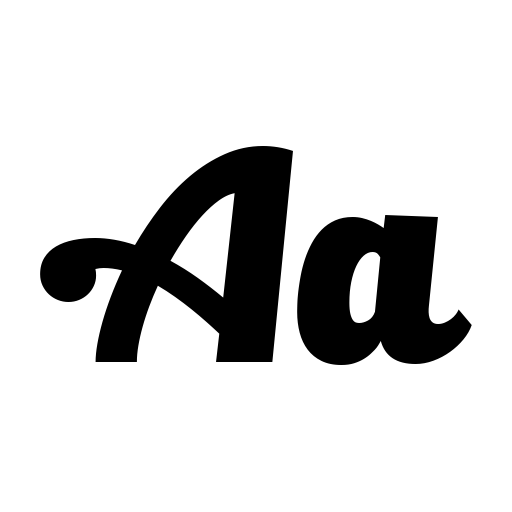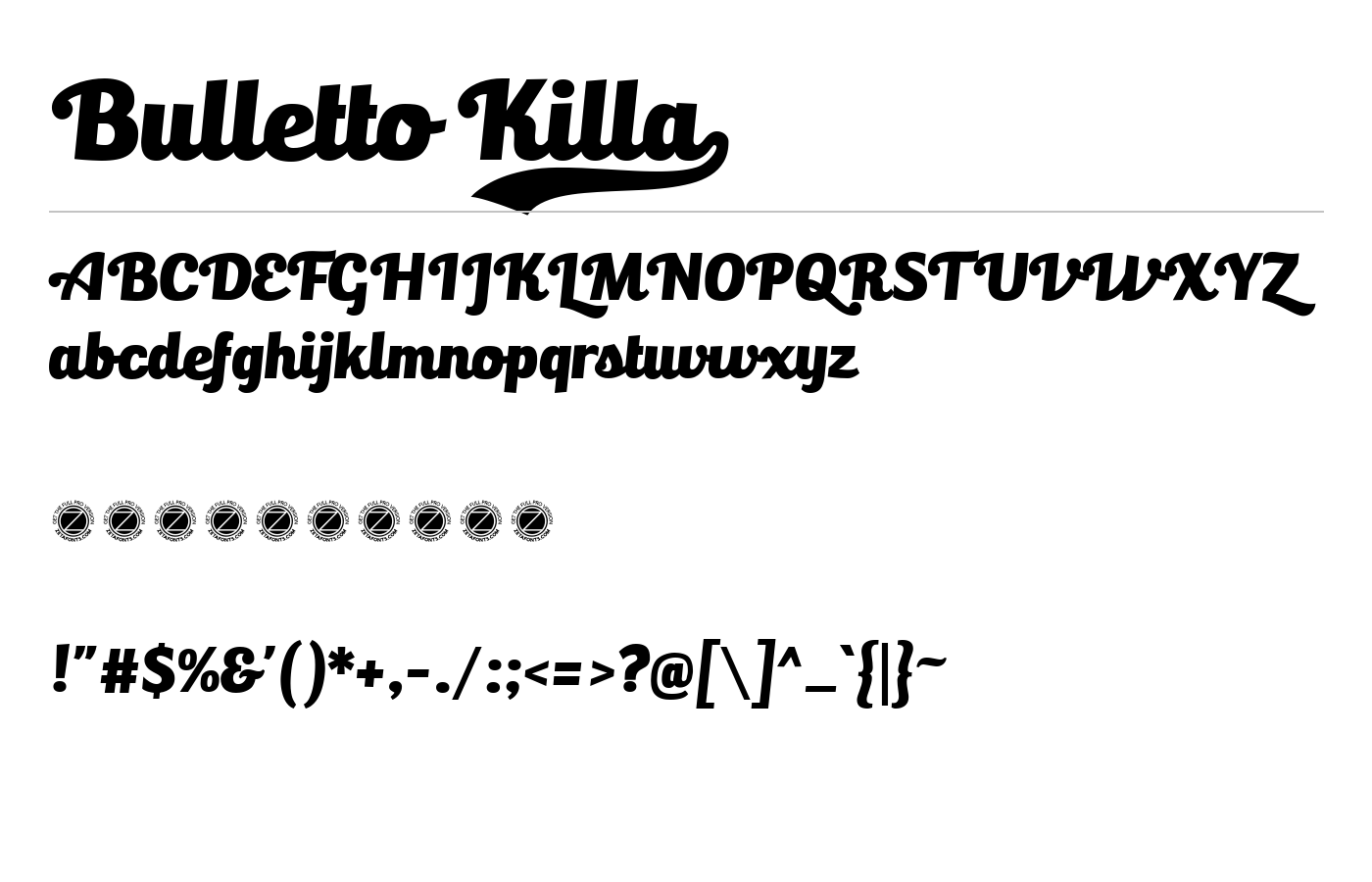
Bulletto Killa is a bold, playful serif font with a vintage-inspired flair and strong calligraphic influences. Its thick strokes, smooth curves, and distinctive swashes give it a dynamic, energetic feel, making it ideal for eye-catching headlines, logos, and branding that aim to convey personality and charm. This font works great in creative and lifestyle projects where a bold, friendly, and stylish appearance is desired.
Bulletto Killa¬ Font
About Bulletto Killa¬ Font
| Font family | Bulletto Killa¬ Font |
| Designer | Cosimo Lorenzo Pancini |